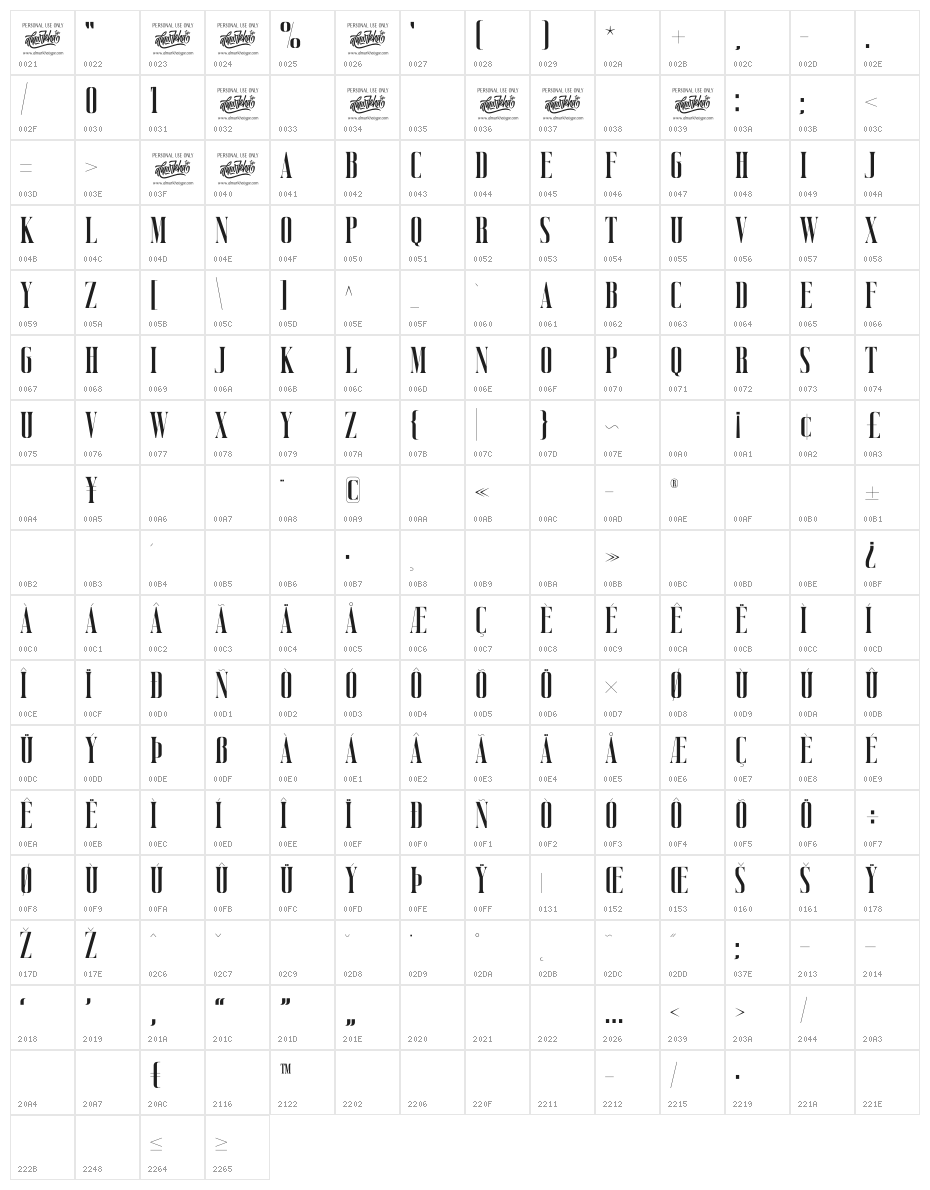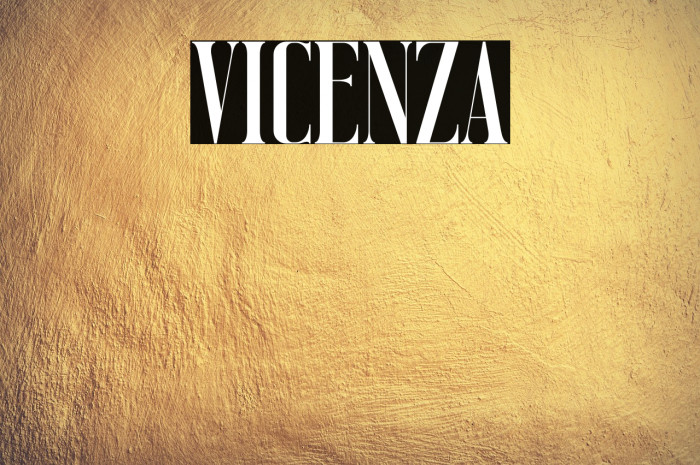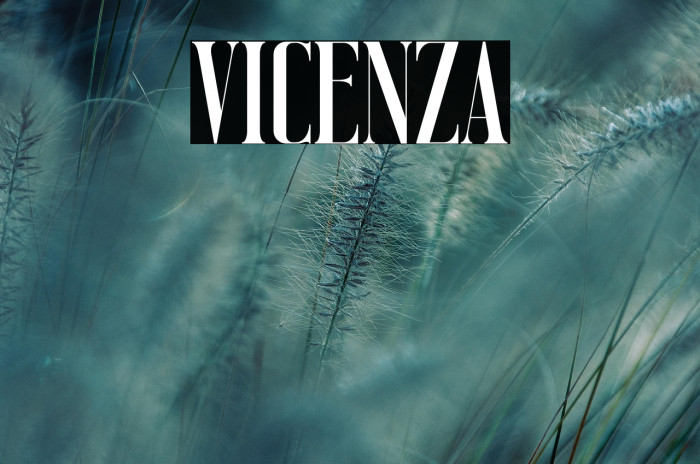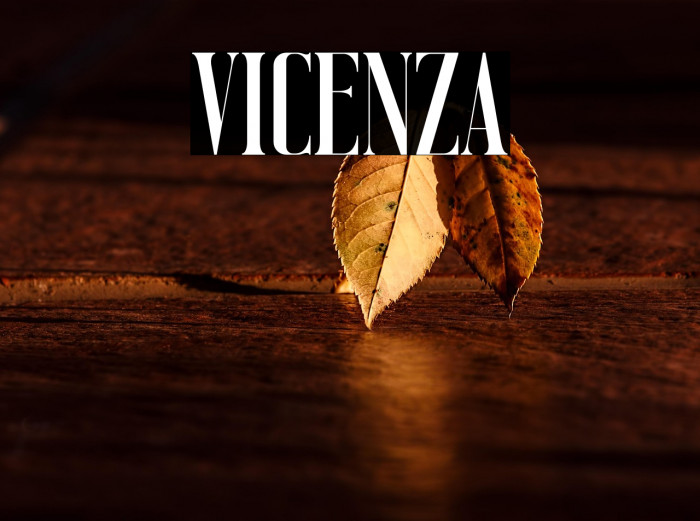
Vicenza Font
Vicenza Description
This font exhibits a striking and elegant design, characterized by its tall, narrow letterforms and high contrast between thick and thin strokes. The uppercase letters are particularly elongated, giving a sense of sophistication and grandeur. The serifs are sharp and pronounced, adding a touch of classic elegance. The overall appearance is both modern and timeless, making it suitable for a variety of design applications. The font's unique style is ideal for creating impactful headlines and titles, where a sense of drama and refinement is desired. Its distinctive look ensures that it stands out, making it a great choice for branding and editorial design.
| Proposed Projects | Perfect for luxury branding, editorial design, fashion magazines, and elegant invitations. |